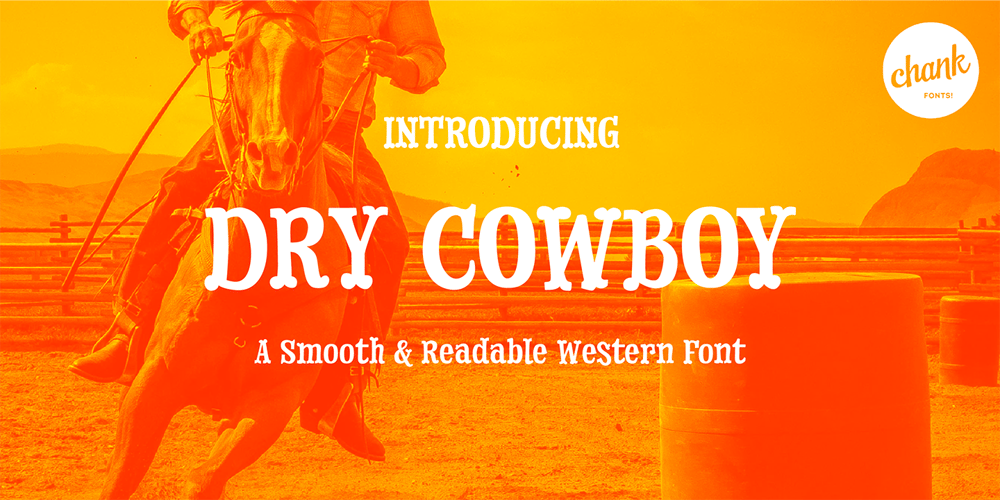
Dry Cowboy Font Family was designed by Chank Diesel and published by Chank. Dry Cowboy contains 1 styles and family package options. Yee haw! Send me a shot of sarsparilla and let’s celebrate a new cowboy font! This time we’re pleased to introduce a new, more legible counterpart to Chank’s Drunk Cowboy font. The resultant new font has a bit less of a drawl to it and is known as Dry Cowboy. Now you have a choice for smaller text setting when using Drunk Cowboy as the headline font. Wrangle the two together and put a little giddyup in your designs.